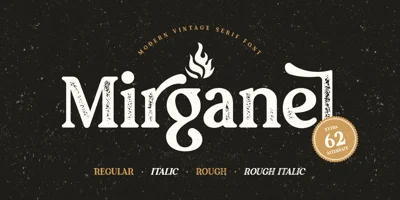
Mirganel Font
Mirganel Font is perfect for mysterious storytelling campaigns, enigmatic personal branding, mystical wellness centers, esoteric book covers, spiritual guidance materials, ancient wisdom publications, tarot reading services, meditation retreat graphics, crystal healing businesses, and enigmatic applications that celebrate the profound mysteries and hidden wisdom of the spiritual realm.
What makes Mirganel Font truly exciting is its ethereal capture of mystical wisdom and spiritual mystery that embodies the ancient knowledge and transcendent understanding found in the deepest realms of consciousness and spiritual exploration. This exceptional typeface combines otherworldly elegance with esoteric sophistication, featuring mystical letterforms and transcendent character that convey both spiritual depth and ancient wisdom. The font's enigmatic personality and mystical authenticity make it perfect for brands seeking to communicate spiritual insight, ancient knowledge, and the transformative power of connecting with higher consciousness and universal truths.
The Mirganel Font family includes multiple weights and styles: Light, Regular, Medium, Bold, and Mystical variations designed for maximum spiritual impact. Each family member maintains the distinctive ethereal character while offering flexibility for diverse spiritual applications and mystical branding systems. The comprehensive character set supports esoteric typography needs and spiritual design elements, making it suitable for international mystical communications.
When you choose Mirganel Font, you're selecting a typography oracle that delivers authentic mystical credibility and spiritual wisdom to every transcendent project. This ethereal typeface excels in applications where spiritual depth and mystical authenticity are paramount, delivering exceptional otherworldly appeal while maintaining esoteric legitimacy. Whether you're designing spiritual brands, mystical campaigns, wisdom publications, or consciousness-expanding materials, this font provides the mystical sophistication and spiritual insight that resonates with seekers who appreciate ancient wisdom, spiritual exploration, and the profound mysteries that connect us to higher consciousness and universal understanding.